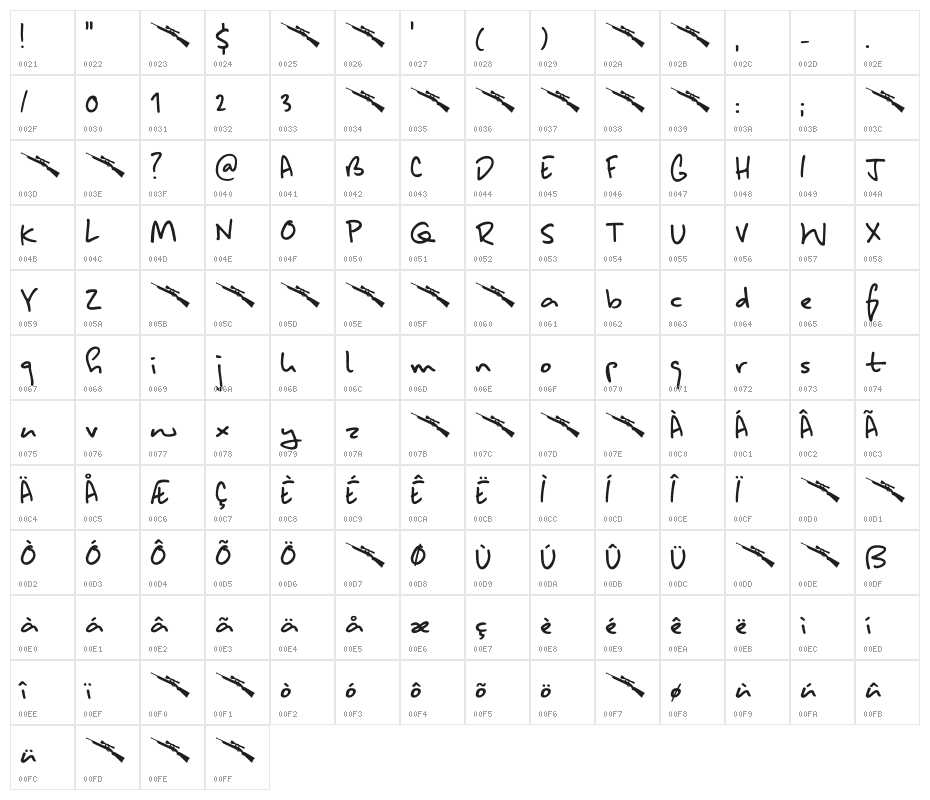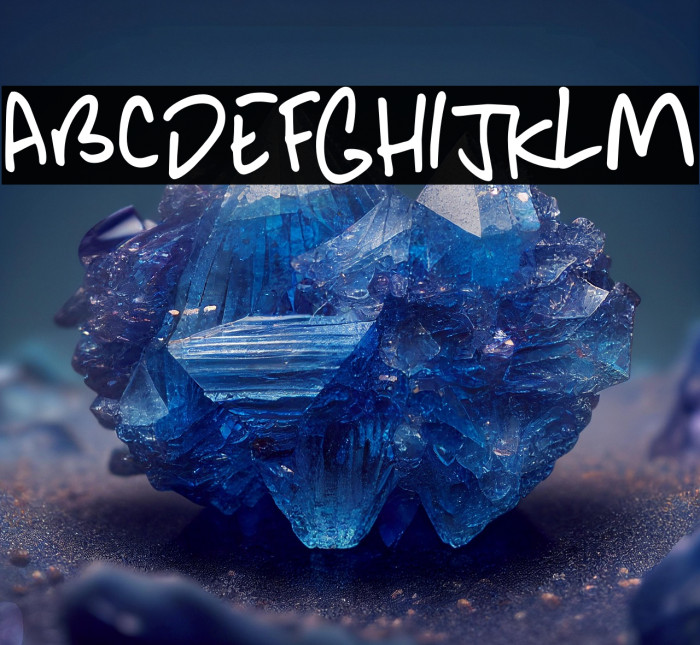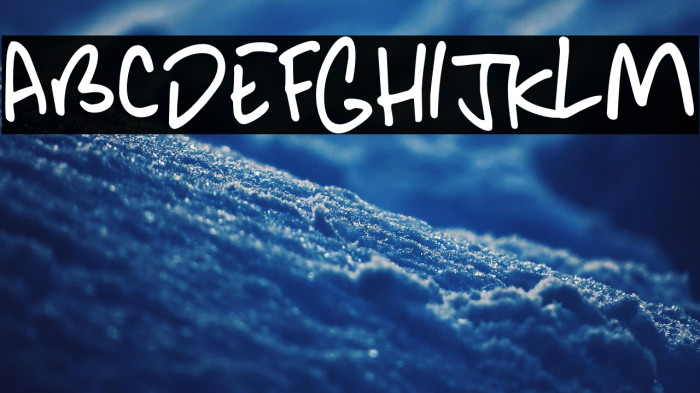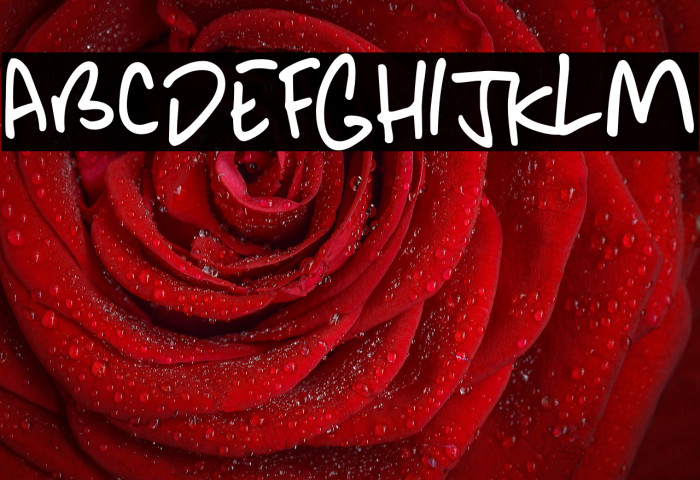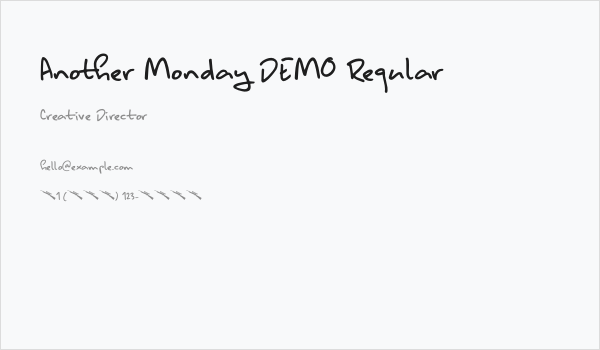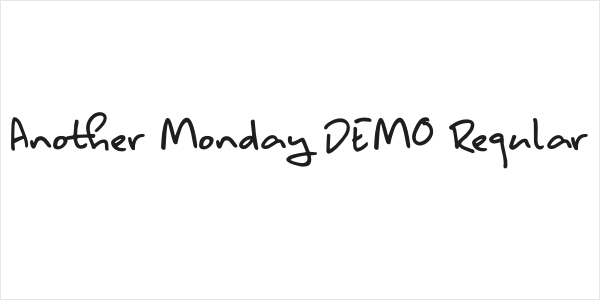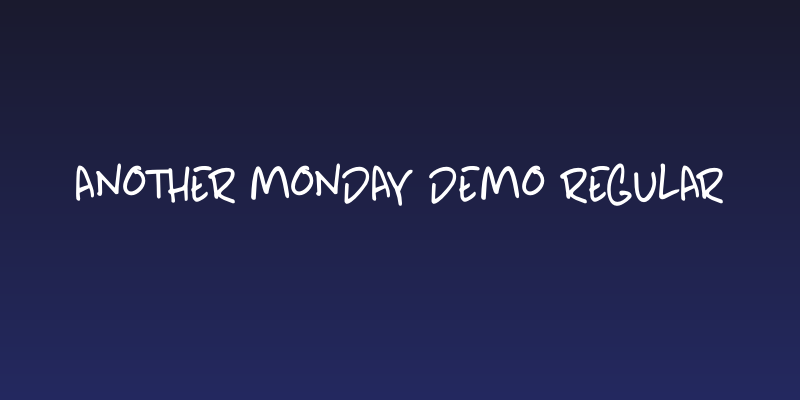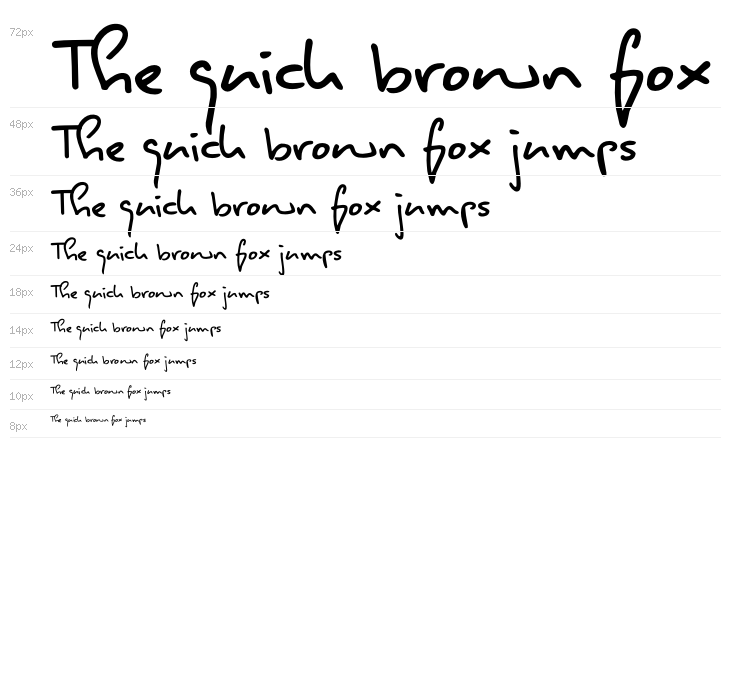
Another Monday DEMO Regular Font
Another Monday DEMO Regular Description
This font features a playful and casual handwritten style, characterized by its smooth, flowing lines and slightly irregular shapes. The uppercase letters are bold and rounded, giving a friendly and approachable feel. The lowercase letters maintain a consistent style, with some letters like 'g' and 'y' having distinctive loops that add to the font's charm. The numbers are clear and easy to read, while the special characters maintain the same playful aesthetic. This font is versatile, suitable for projects that require a personal touch or an informal tone.